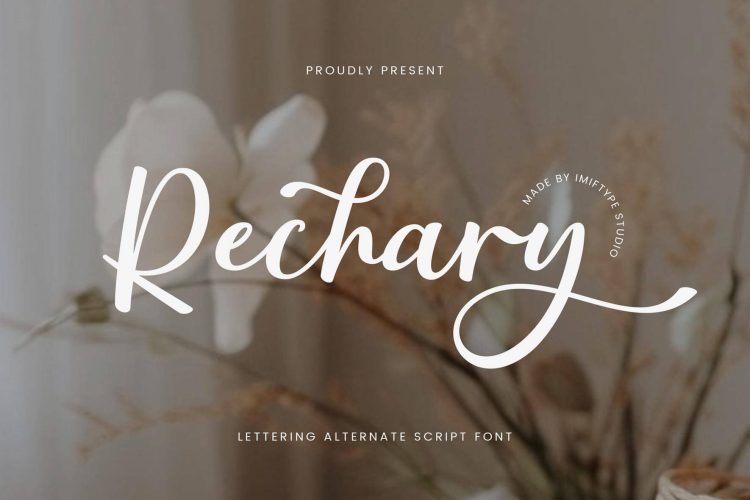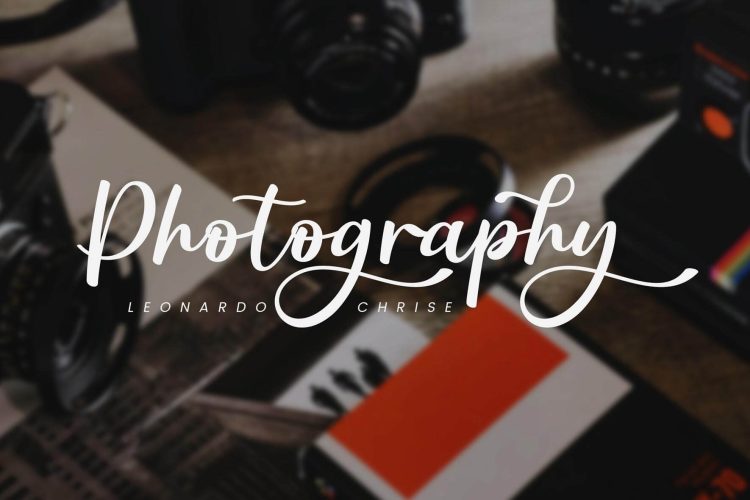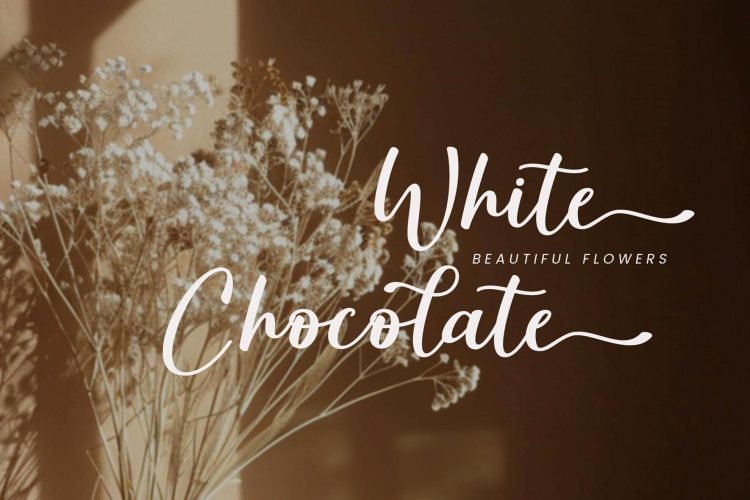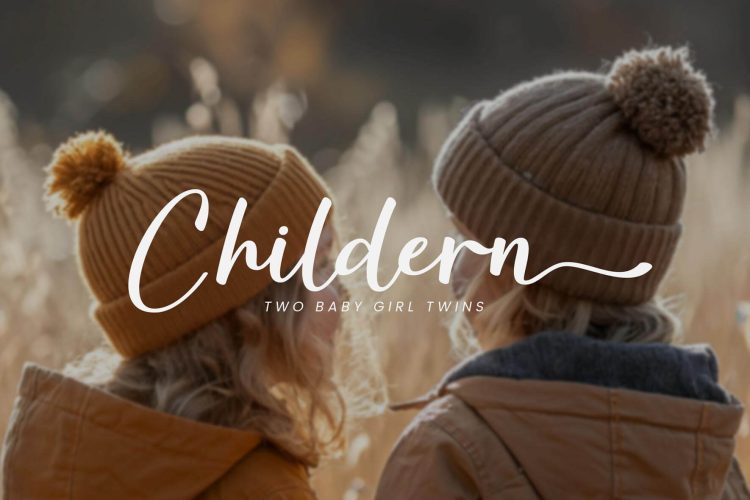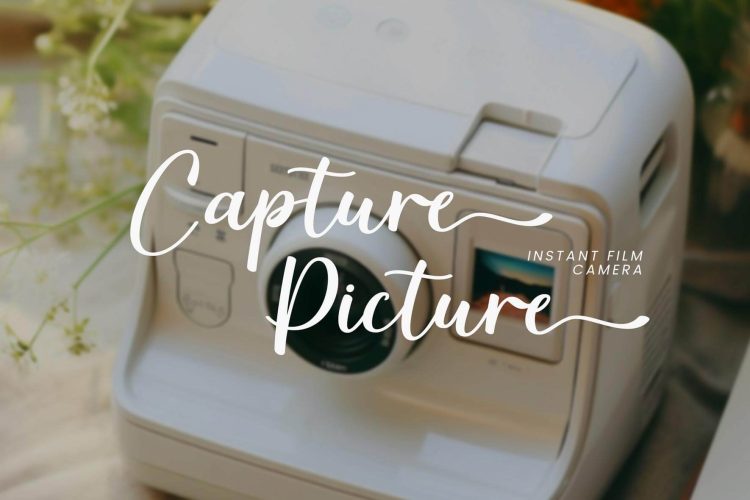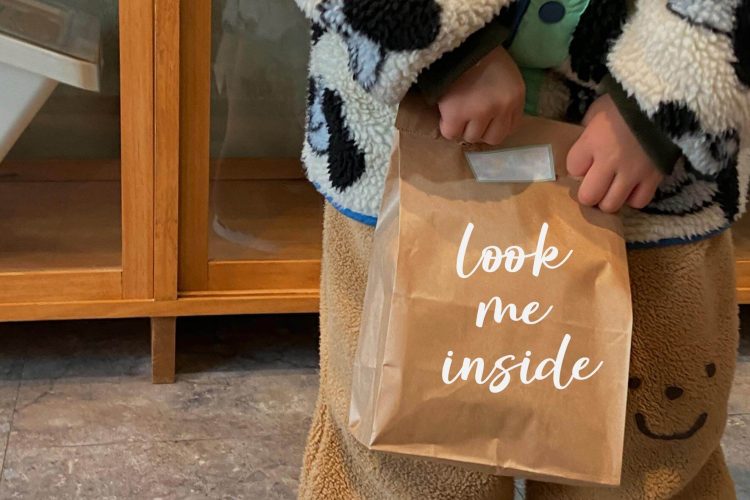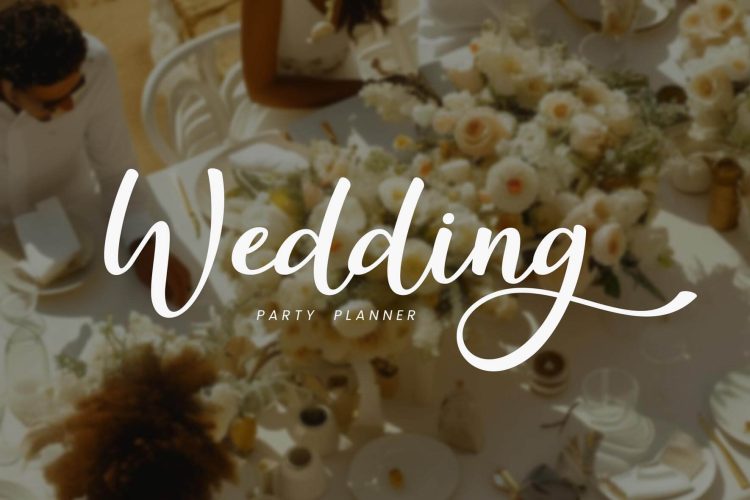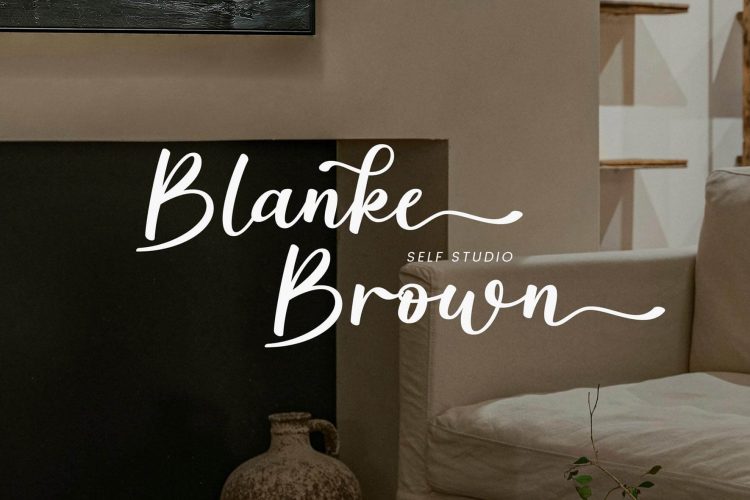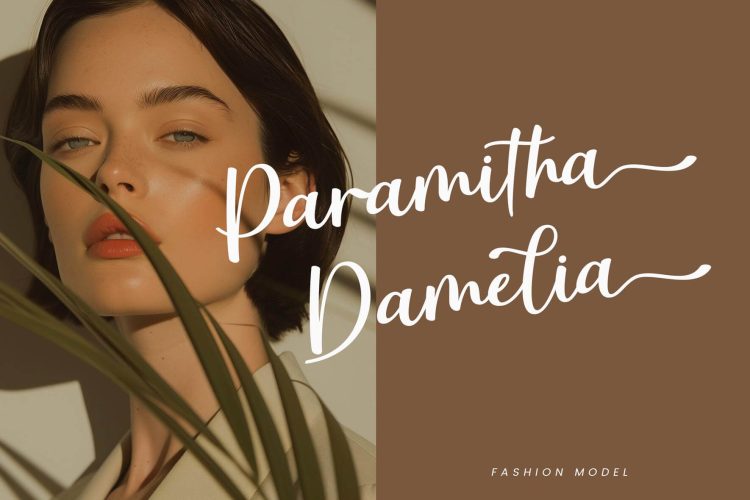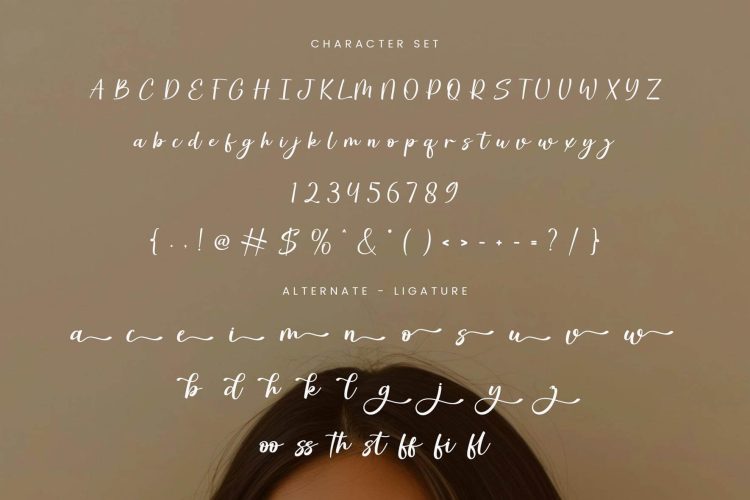
Rechary is perfect for company branding projects, logos, wedding designs, social media posts, advertisements, product packaging, watermarks, invitations, stationery, and any project that requires a handwritten style. Simple and elegant are two words that describe rechary. The handwritten style gives a classic and elegant impression.
Features:
- Ligatures & Alternates with Swashes
- Uppercase and Lowercase Letters
- Numerals and Punctuation (OpenType Standard)
- Accents (Multilingual Support)
- Stylistic Sets for Ligatures and Alternate Styles